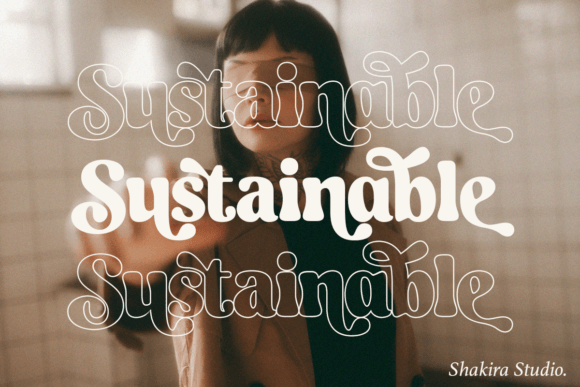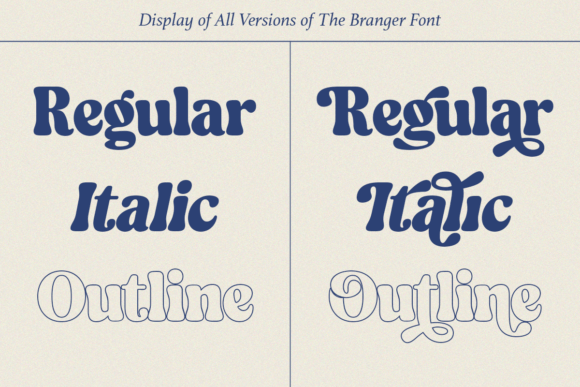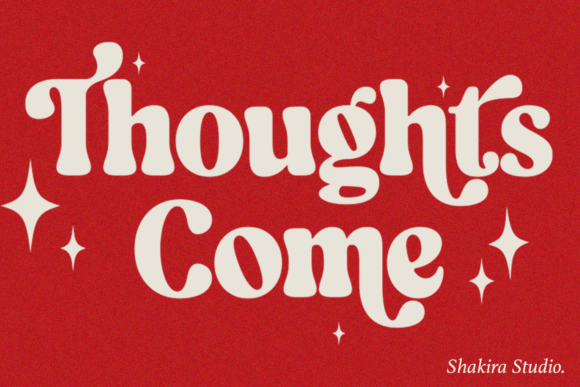
Branger Font
Branger isn’t just a serif font; it’s a versatile toolkit for designers seeking to make a bold statement. With its bold retro serif characters and three stylish variations – regular, italic, and outline – Branger embodies the essence of serif fonts and typography trends.